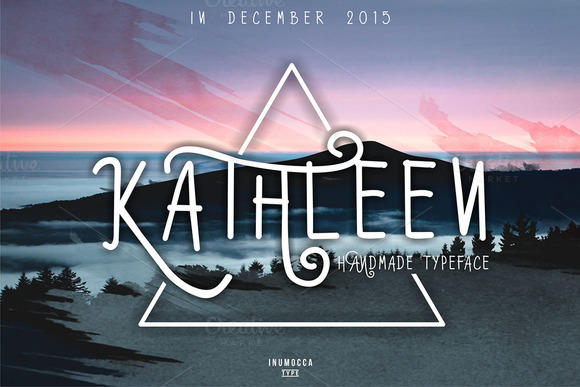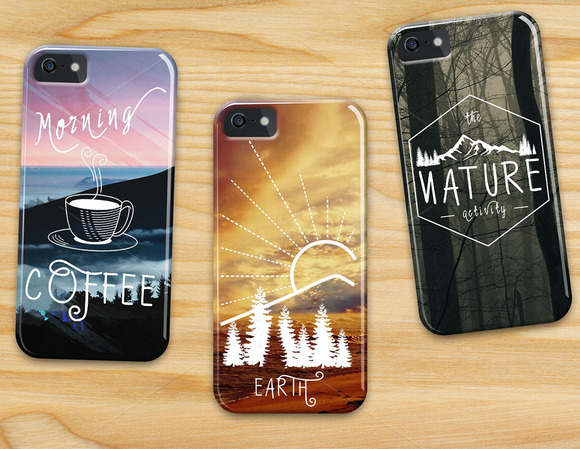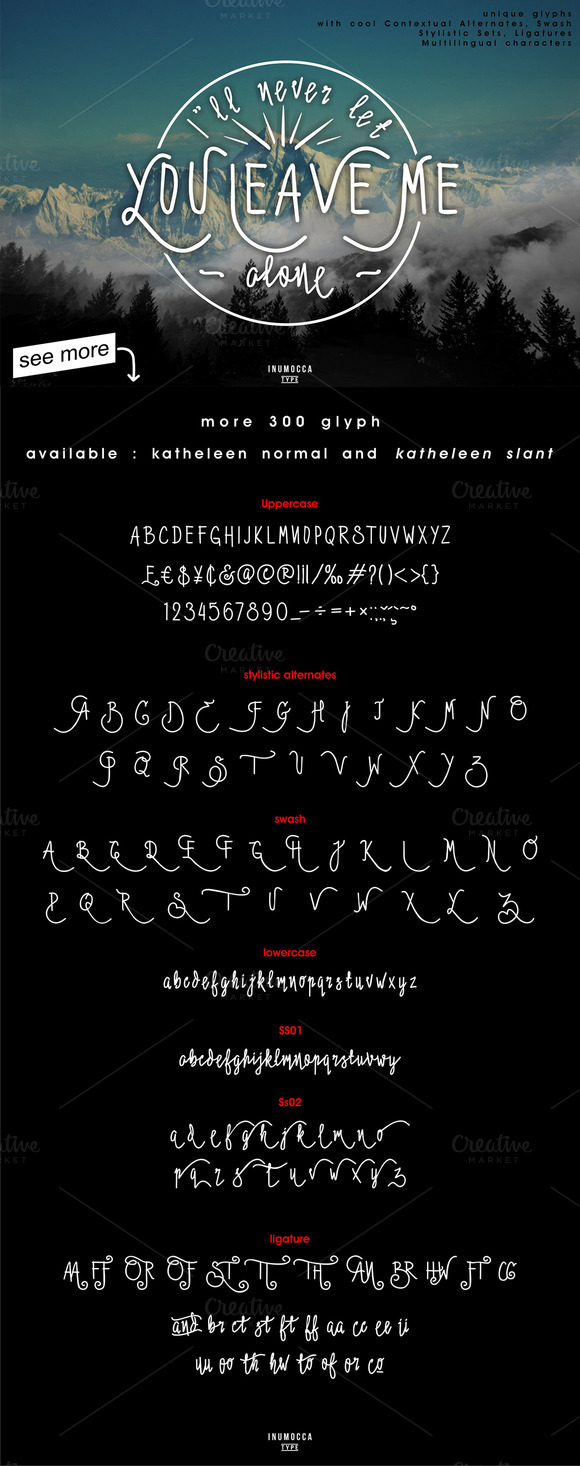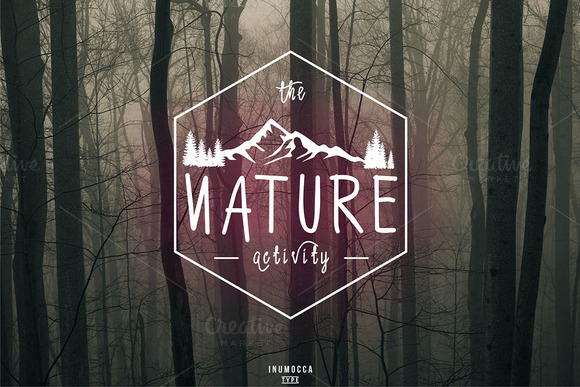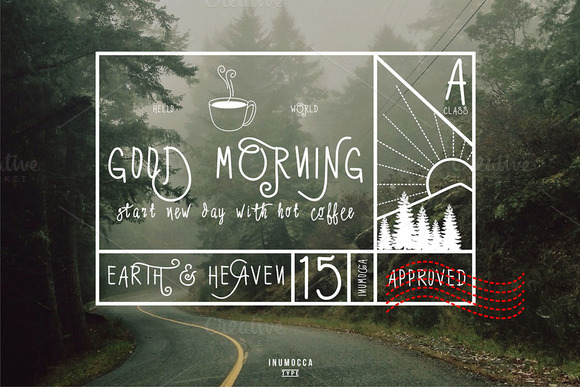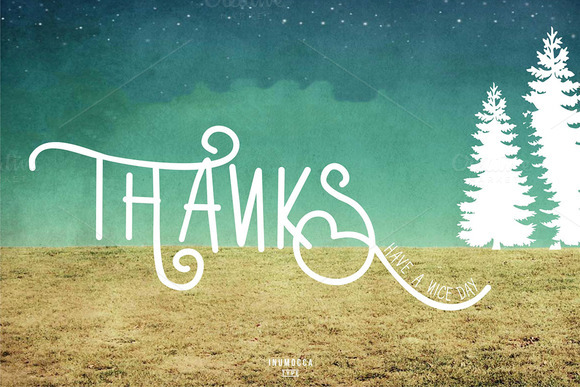
Kathleen Font
About Kathleen Font
Kathleen its a modern vintage typeface. It’s really beautiful for typography, your brand, logos, cataloges, stamps, tags, fashions and arts.